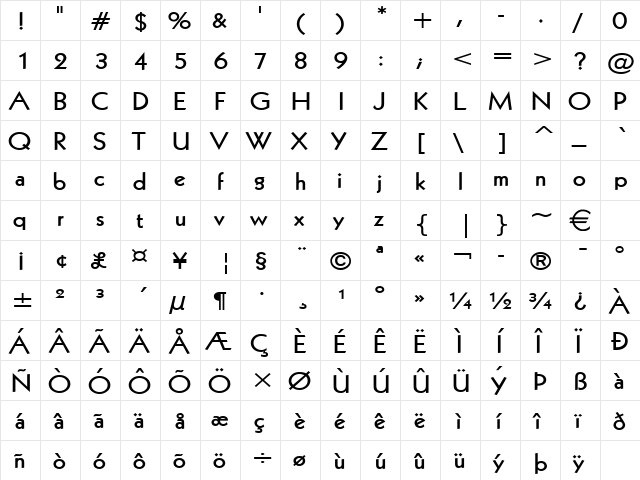
Geo112Wide Bold
Design Context for Geo112Wide Typeface
Geo112Wide is a composed and adaptable typeface that performs quietly and consistently across a wide range of design contexts. The heavy weight commands attention and anchors typographic hierarchies.